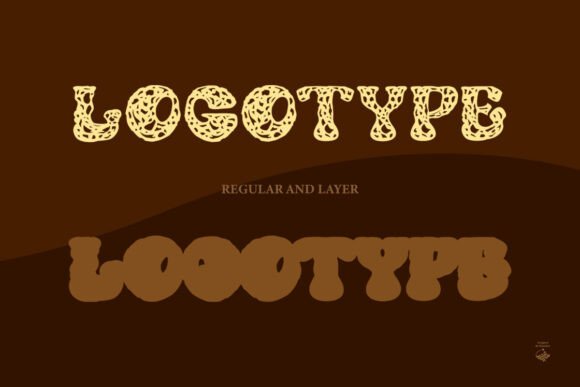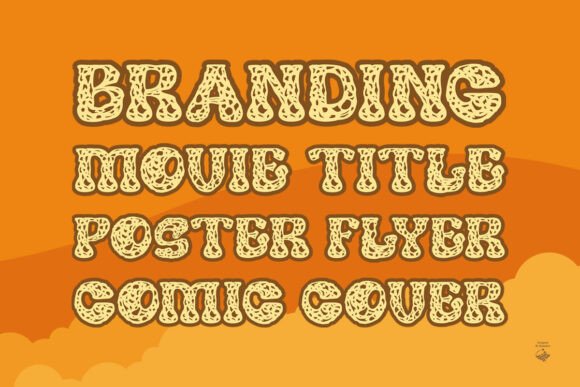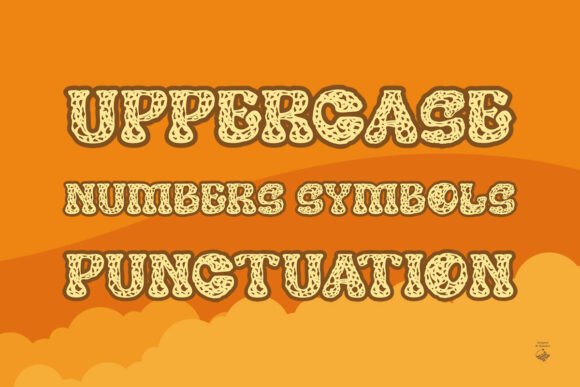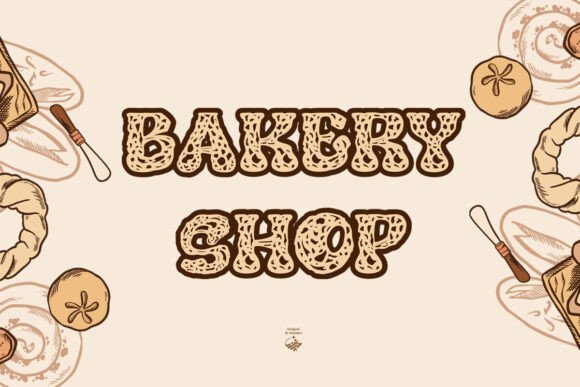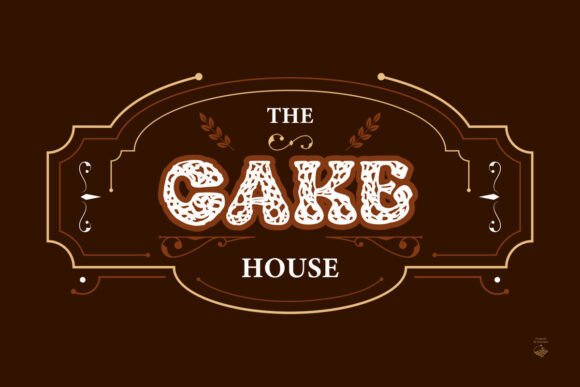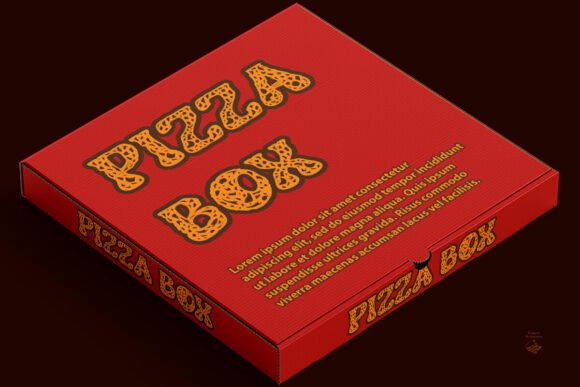
Introduction to Holedis Font
Have you ever found yourself stuck in front of a blank page, struggling to come up with the perfect design for your project? This is where the right font can make all the difference. For designers, the perfect font can elevate a simple design into a stunning work of art, and that’s exactly what the Holedis Font offers.
This artistic handmade font boasts a unique and modern hollow capital letter style, paired with a striking back layer that adds an elegant touch. With its versatility and high quality, Holedis Font is the perfect design resource for any creative project, whether it’s branding, logos, book covers, or even movie titles.
Key Features of Holedis Font
- High-quality, unique design with a transparent background, making it perfect for creative projects.
- Unique characteristics: distressed texture and worn-out effect, adding a vintage touch to any design project.
- Perfect for use in creative projects, such as posters, flyers, and social media graphics, where a distressed look is desired.
Honest Review: Holedis Font
As a designer, I’m always on the lookout for unique and versatile design resources. Recently, I had the chance to work with the Holedis Font, and I’m excited to share my honest review with you.
- ✨ The Holedis Font is a high-quality, creative project font that offers a range of expressive and stylized characters.
- ✨ The Holedis Font features a transparent background, allowing for seamless integration with any design element.
- ⚠️ The font may not be suitable for formal or professional projects, as its stylized nature can come across as unprofessional.
- ⚠️ Some characters may require additional styling or customization to achieve the desired look.
Overall, I’m impressed with the Holedis Font’s unique character and versatility. While it may have some limitations, it’s an excellent design resource for creative projects, and its free download makes it an attractive option for designers on a budget. I’d definitely recommend giving it a try for your next design project.
Tips for Getting the Most Out of Holedis Font
Use the Holedis Font with a transparent background to create a unique design element. Experiment with different font sizes and styles to add visual interest to your project. Combine the Holedis Font with other design resources to create a high-quality design.
Common Use Cases for Holedis Font
The Holedis Font is suitable for various creative projects, including logos, business cards, and social media graphics. Its high-quality design makes it an excellent choice for designers and non-designers alike.
Alternatives to Holedis Font
Aleo Font is a high-quality sans-serif font that is ideal for creative projects requiring a clean and modern look. It features a transparent background, making it perfect for designs that need a subtle and elegant feel. This font is a great alternative to Holedis Font for designers who want a similar aesthetic without the limitations of a paid font.